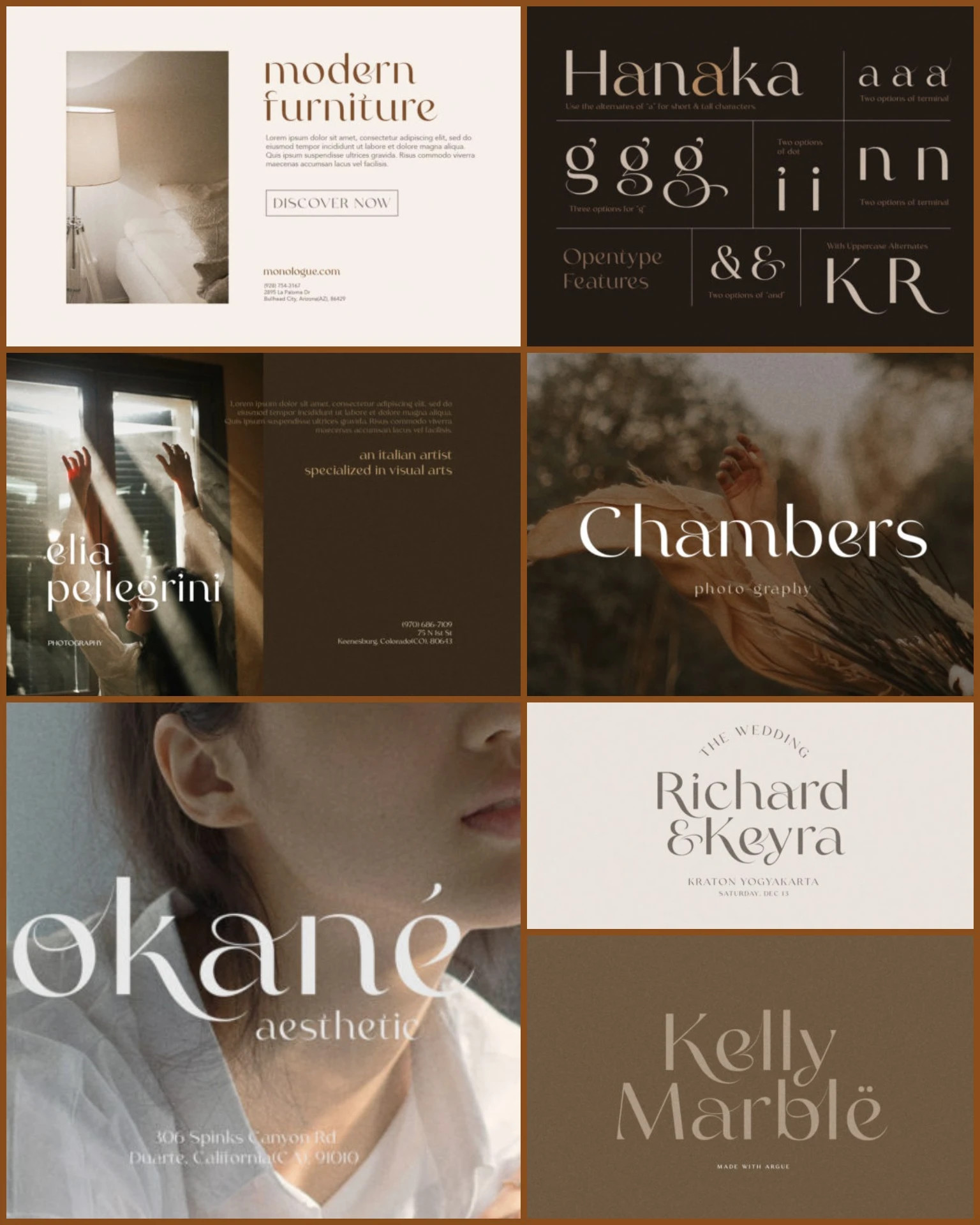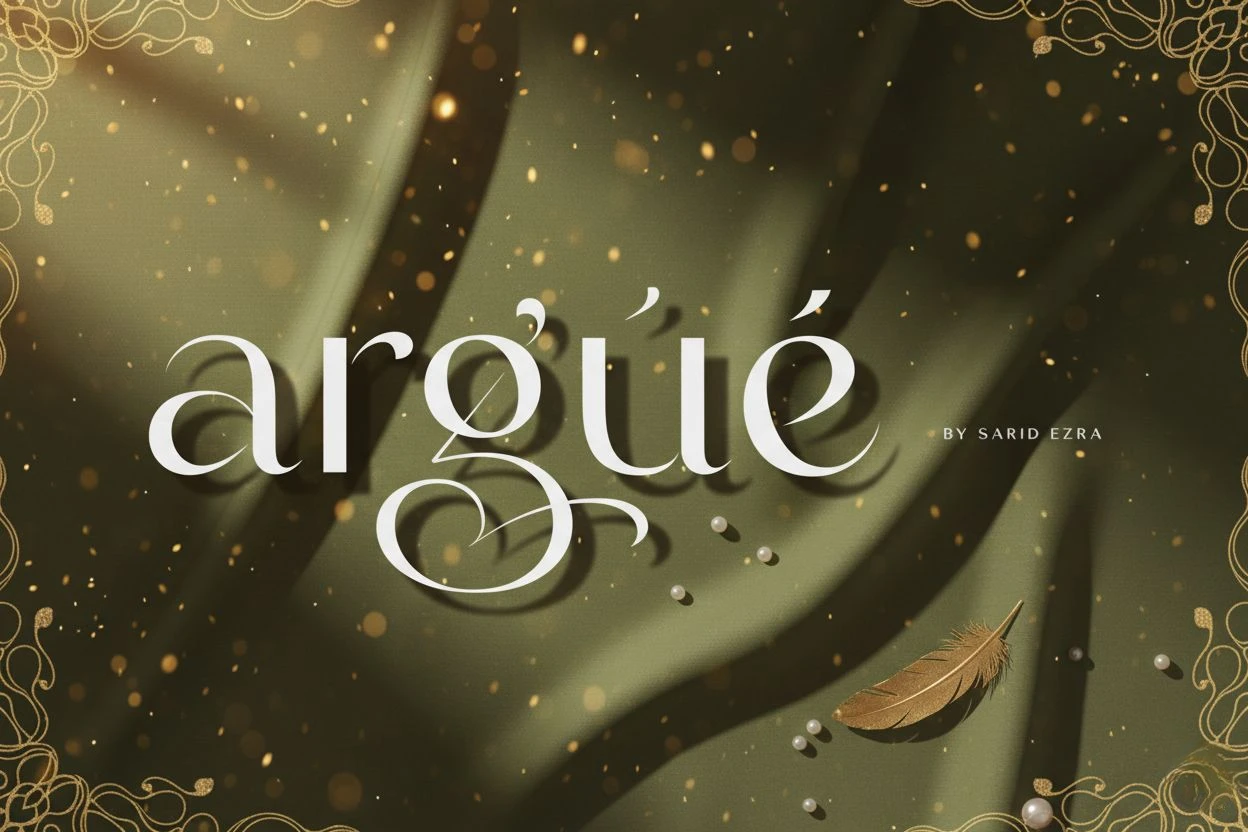
Argue is a refined and elegant display font designed to bring sophistication and artistic flair to any project. With its graceful curves, stylish ligatures, and high-fashion aesthetic, this typeface is perfect for designers seeking a luxurious and feminine visual style. Its unique balance of classic serif structure and modern decorative details makes Argue ideal for branding, editorial layouts, product packaging, logos, invitations, and social media content.
Crafted with precision, Argue elevates any design with a touch of class and timeless beauty. Whether you’re working on a fashion brand, beauty product, wedding design, or a high-end advertising campaign, this font delivers elegance, style, and personality.